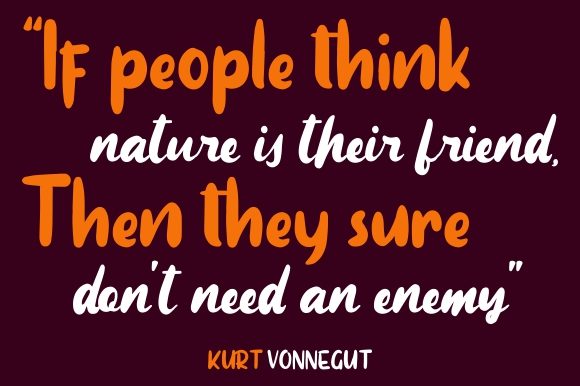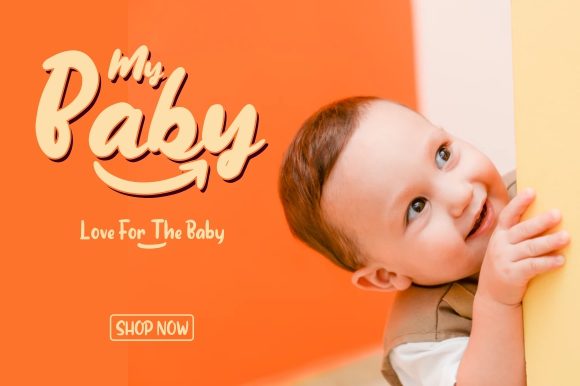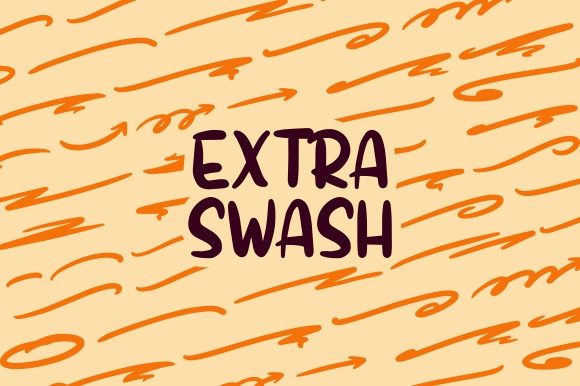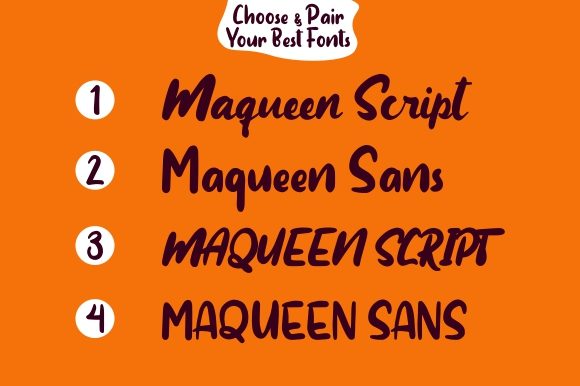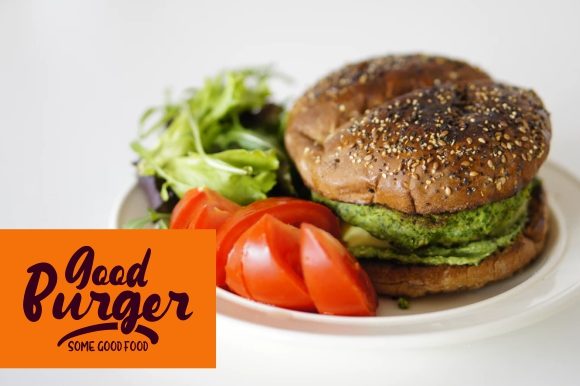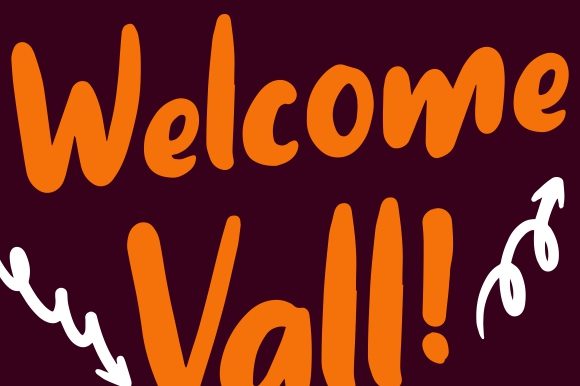
Introduction to Maqueen Duo Font
The Maqueen is a friendly font duo.
It has round corners and was inspired by family and fun kids stuff This duo comes in a display sans style and a semi script variation, which can be combined together perfectly.
Maqueen Duo Font offers exceptional quality and versatility, making it a valuable addition to your design toolkit. Whether you’re creating for personal projects or commercial use, Maqueen Duo Font delivers professional results.